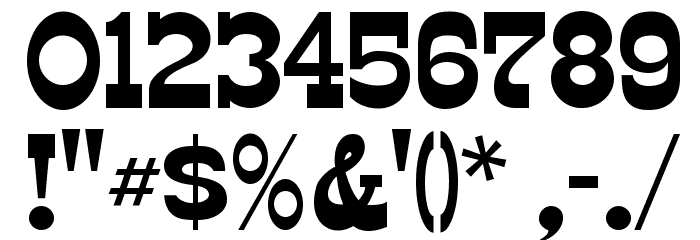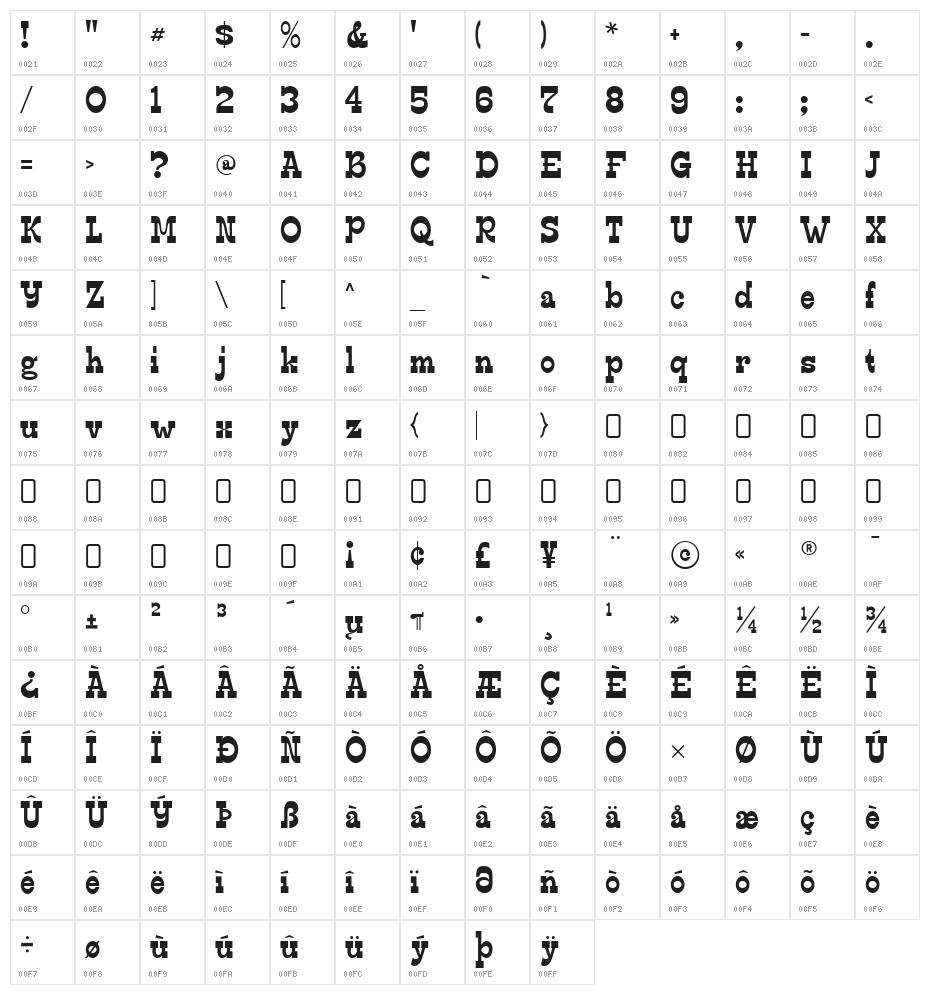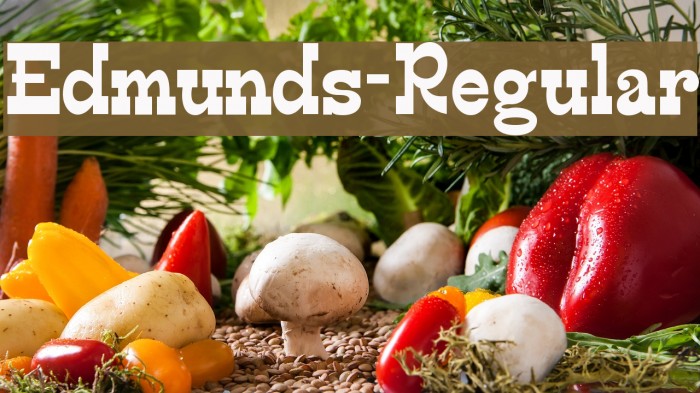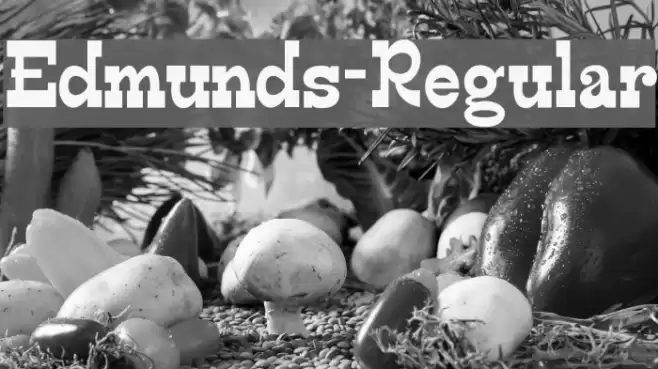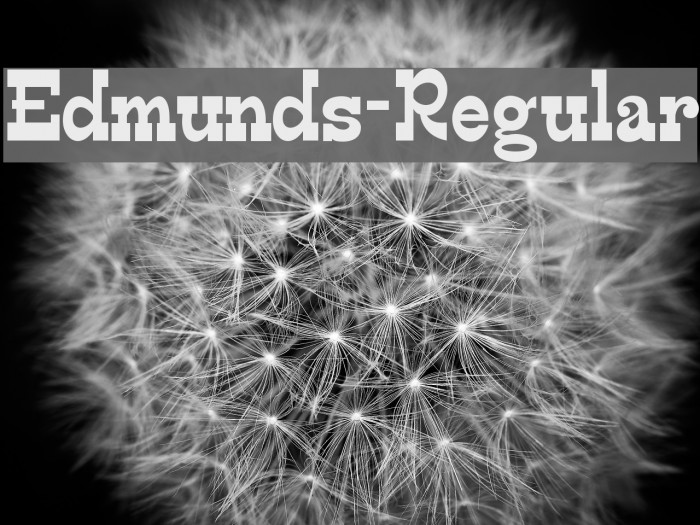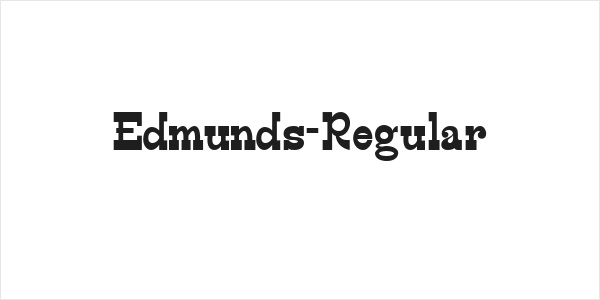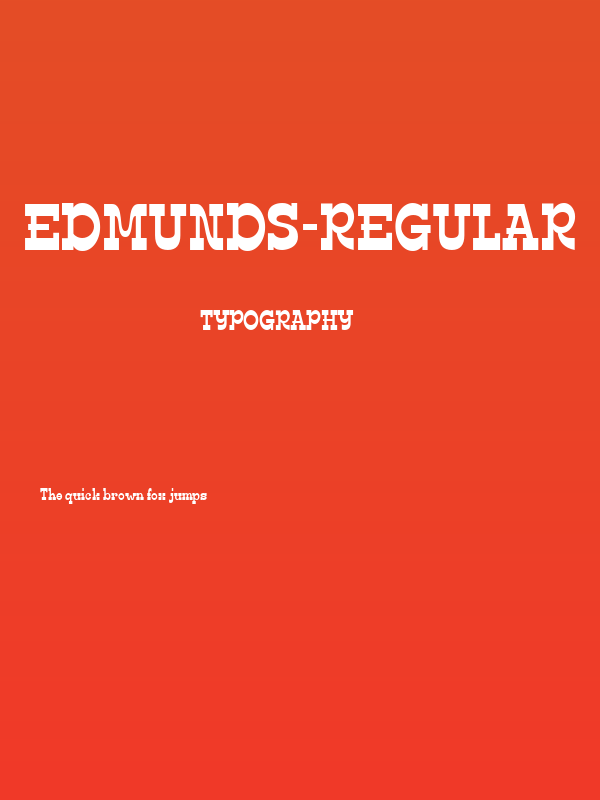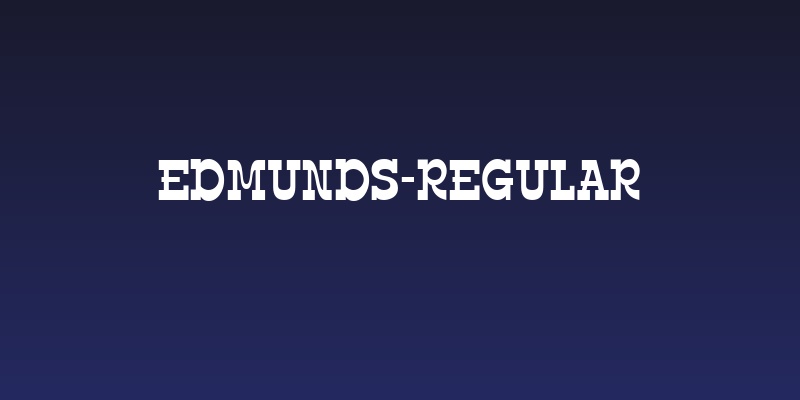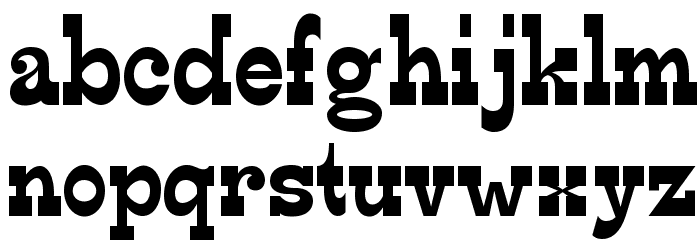
Edmunds-Regular Font
Edmunds-Regular Description
This font features bold, blocky characters with a strong presence, making it ideal for attention-grabbing designs. The uppercase letters are robust and commanding, while the lowercase letters maintain a consistent weight, ensuring readability. The numerals are clear and distinct, matching the boldness of the alphabet. Special characters are designed with the same bold style, providing a cohesive look across all glyphs. The font's slab serif style adds a touch of classic elegance, yet its boldness gives it a modern edge. This combination makes it versatile for various design projects.
| Proposed Projects | Ideal for headlines, posters, branding, and any design requiring a bold statement. |